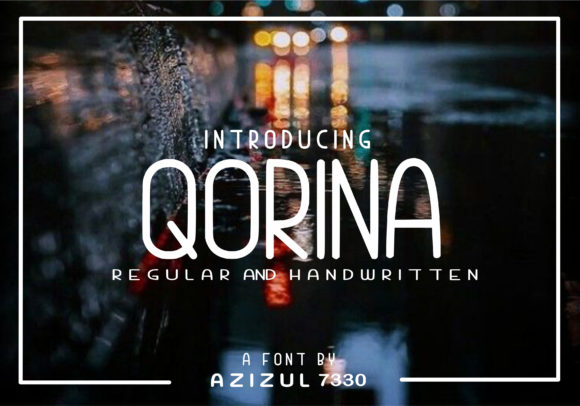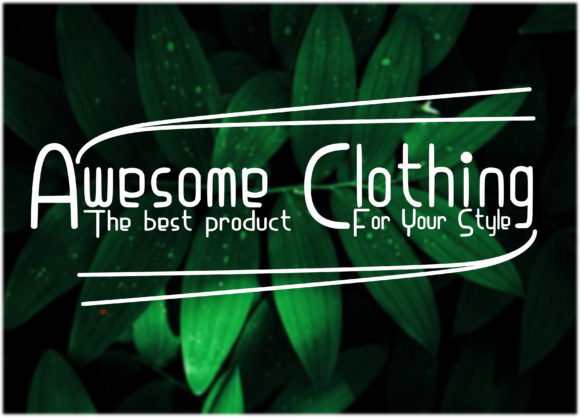
HomeScript FontsQorina Font Script Fonts Qorina Font FacebookXPinterestWhatsApp Qorina Font Poster 2 About Qorina Font Qorina is a simple and minimalist font with an authentic spark. Get inspired by its smart feel. DOWNLOAD ON CREATIVE FABRICAThis font is sold and delivered by Creative Fabrica. Font Canyon may earn a commission if you buy through this link. People also explored Taslymah Font Ofwhite Font Bijoux Bloom Font Bottagif Font Backfired Font Lorie Bacque Font Masterly Font Hello Farmhouse Rosamunde Font 415 0 TagsQorina Font Previous articleValyrianth FontNext articleUnbridled Font LEAVE A REPLY Cancel reply Comment: Please enter your comment! Name:* Please enter your name here Email:* You have entered an incorrect email address! Please enter your email address here Website: Save my name, email, and website in this browser for the next time I comment. Personal Use Free Miracles Personal Use Free Read more about this font Charlie Personal Use Free Read more about this font Term Free Personal Use Free Read more about this font Ginóra Personal Use Free Read more about this font BLOG Free vs Paid Fonts: Why Investing in Premium Fonts Is Worth It Free vs Paid Fonts: Why Premium Fonts Are Worth It in 2025 The debate of free vs paid fonts continues in the design world. While... How to Cut Any Font on Cricut: Convert a Font to SVG (Free) Elegant Wedding Invitation Fonts – Handwritten & Script Fonts Transform Your Website: Elevate Your Typography with 7 Best Web Font Generators